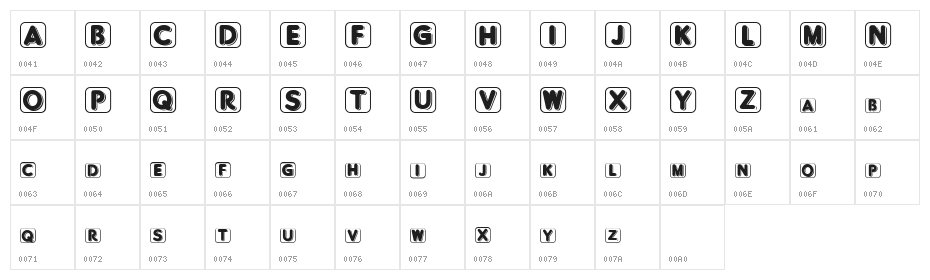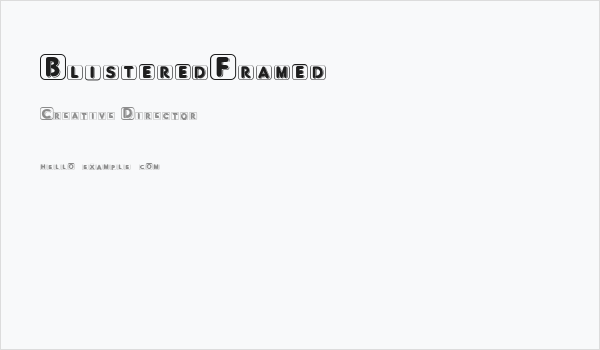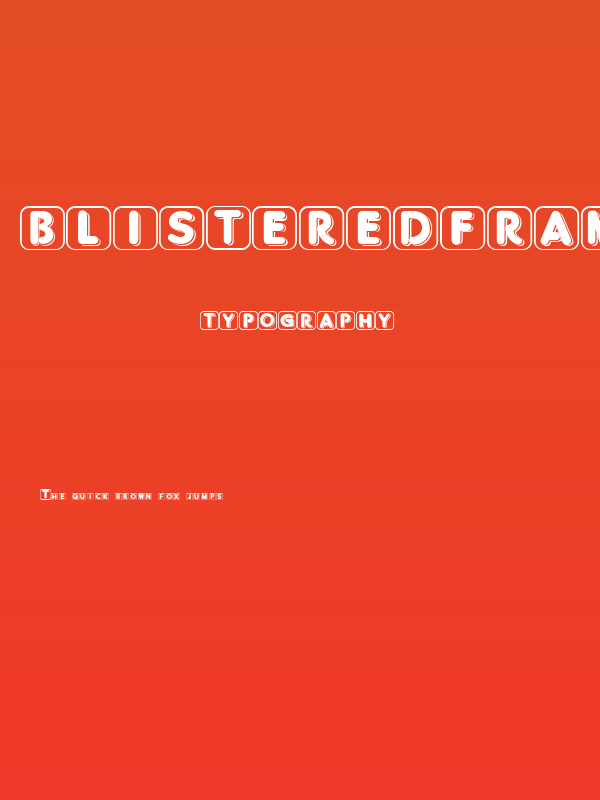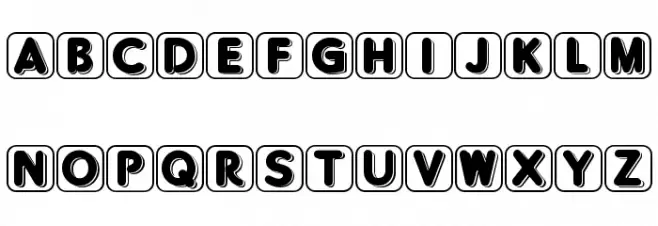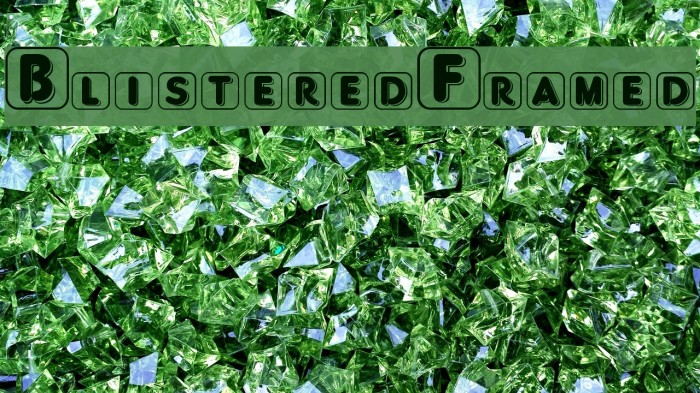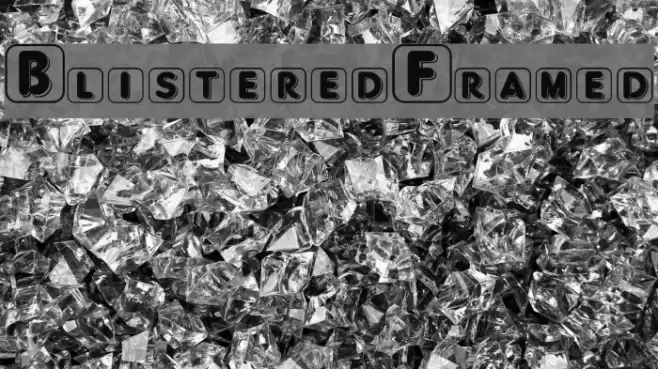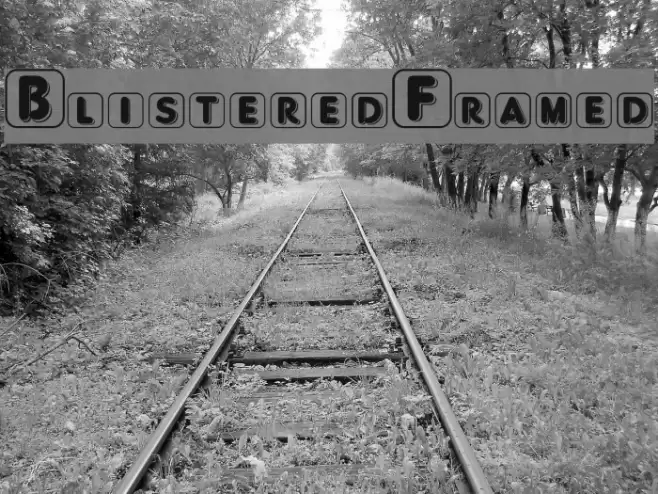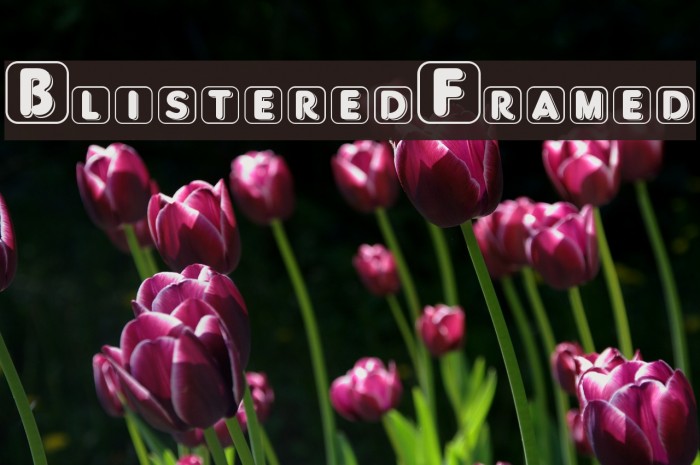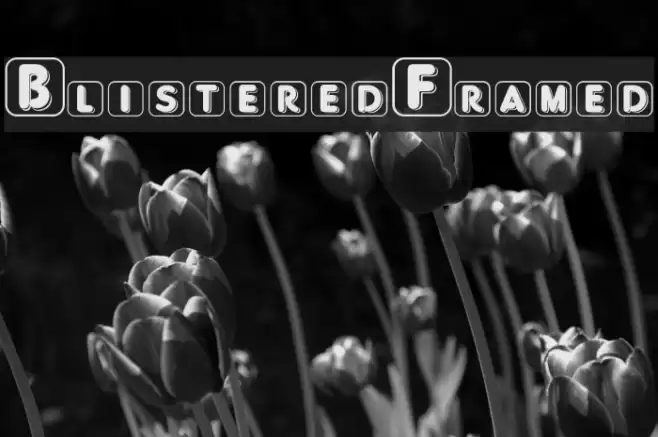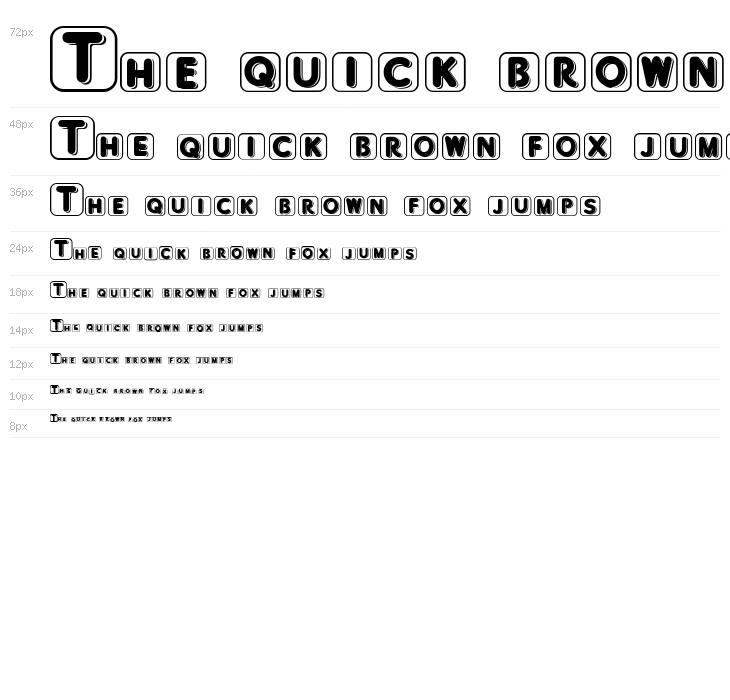
BlisteredFramed Font
BlisteredFramed Description
This font features bold, uppercase letters encased in rounded, rectangular frames. Each character is distinct with a thick, black outline that enhances its visibility and impact. The letters are evenly spaced within their frames, creating a uniform and structured appearance. The style is playful yet strong, making it suitable for attention-grabbing designs. The enclosed nature of the letters gives it a unique, almost retro feel, reminiscent of vintage signage or arcade game aesthetics. The consistent framing around each character adds a layer of depth, making the text appear almost three-dimensional.
| Proposed Projects | Ideal for posters, logos, video game titles, and any design requiring a bold, vintage touch. |